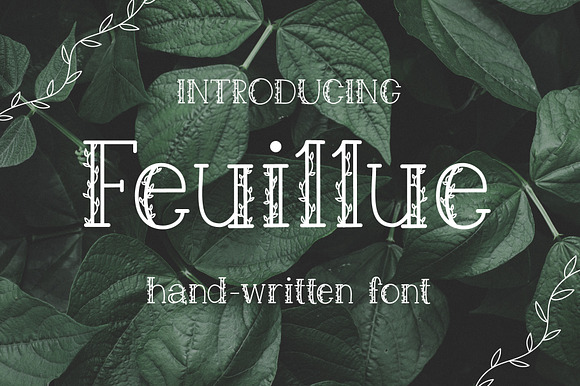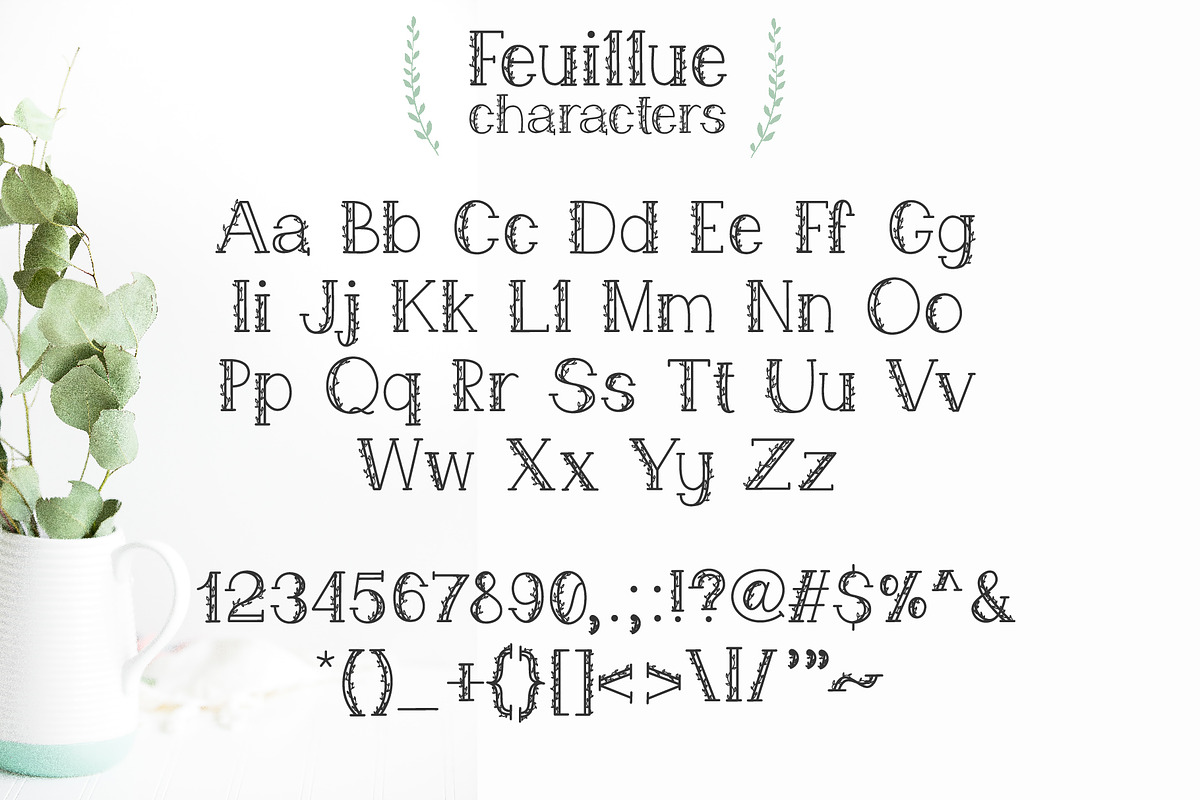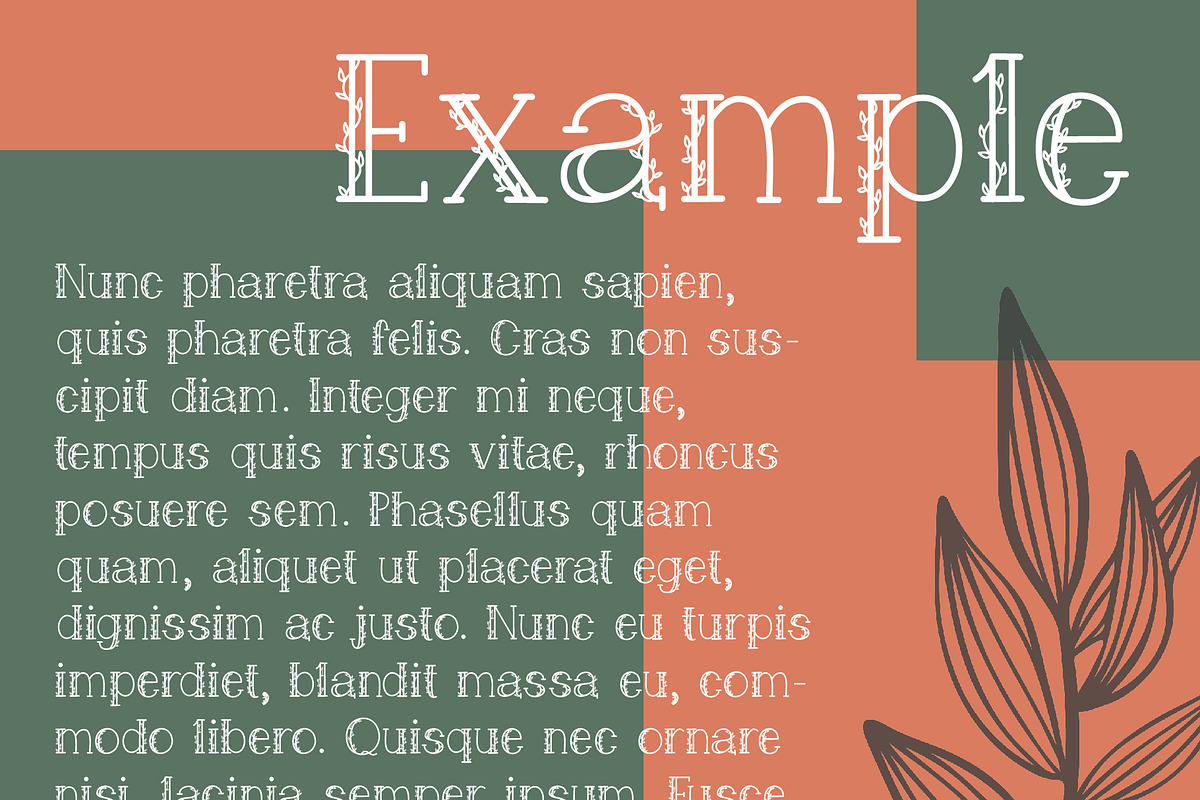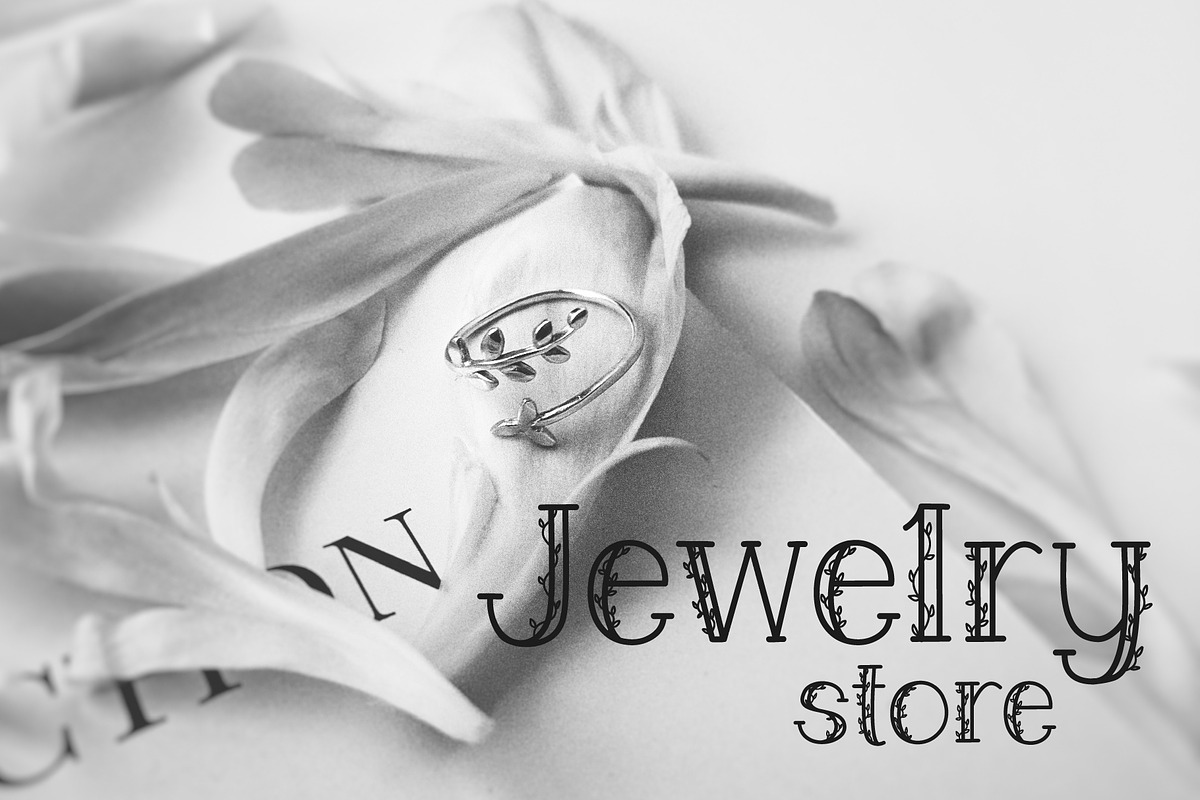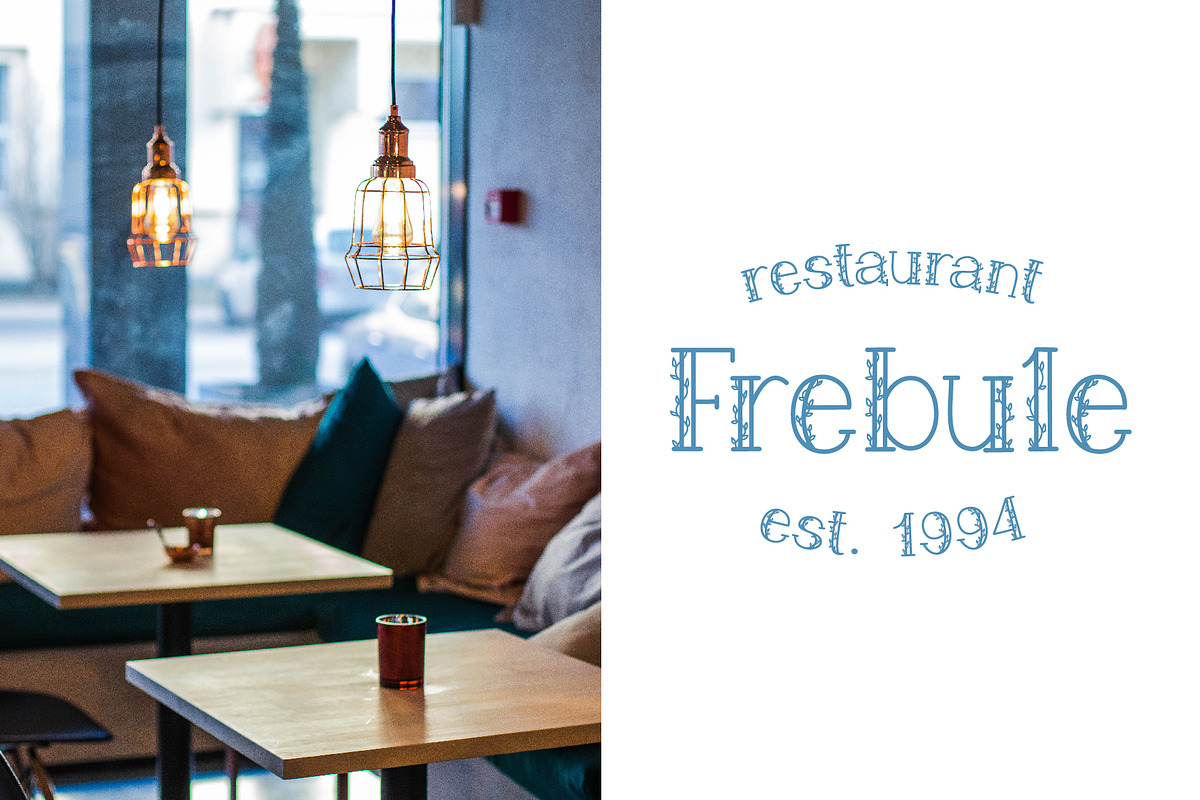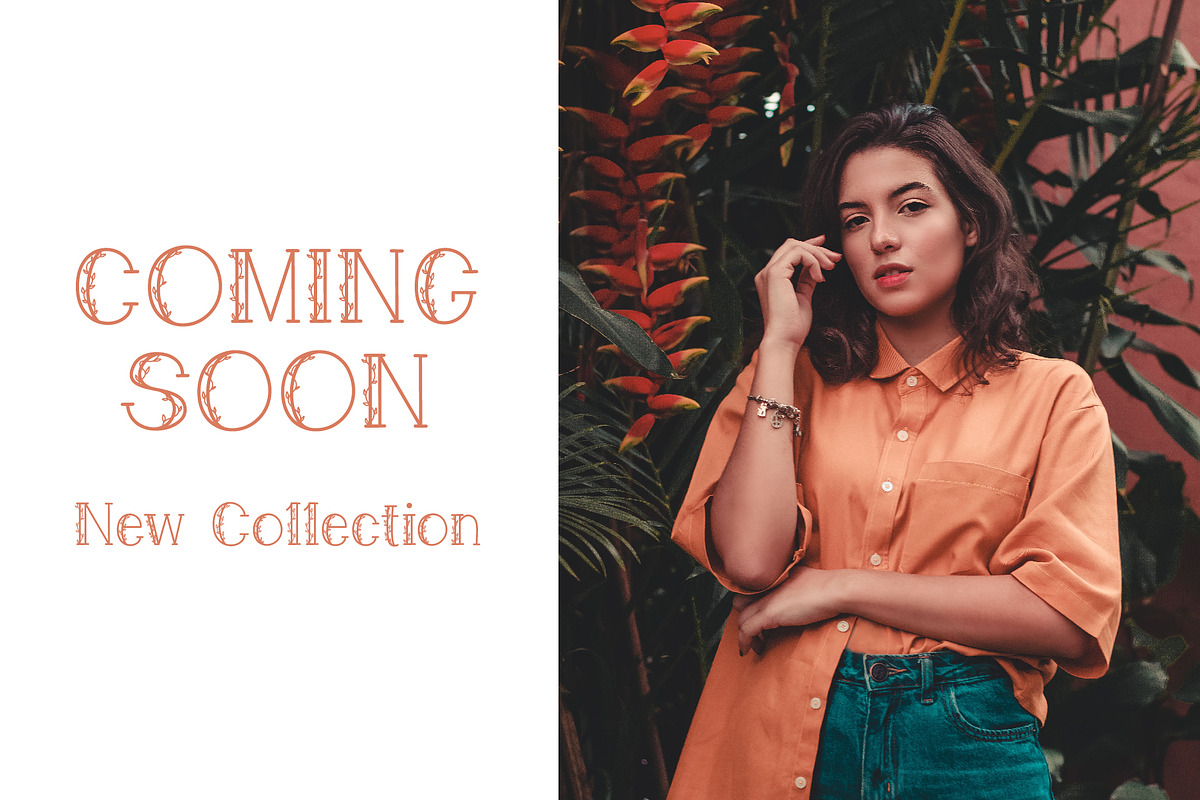
Feuillue | serif font
Hi guys! I am pleased to introduce my new font - Feuillue! It's a simple handwritten font with clean lines. This font is well suited for titles, quotes, phrases. Also it would look great in logos, labels, heading, posters and on t-shirts.